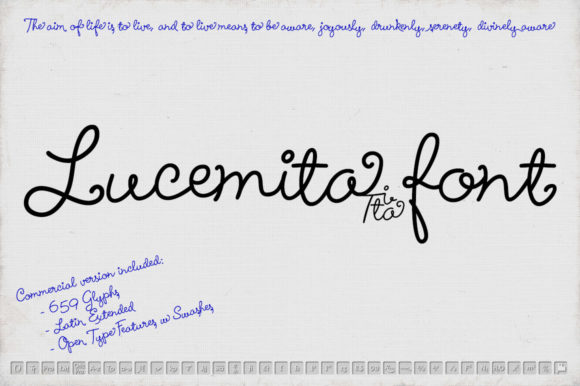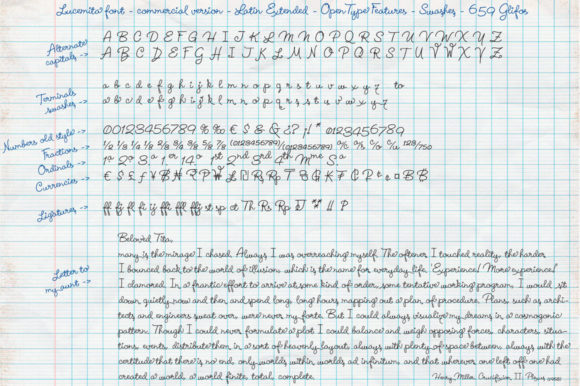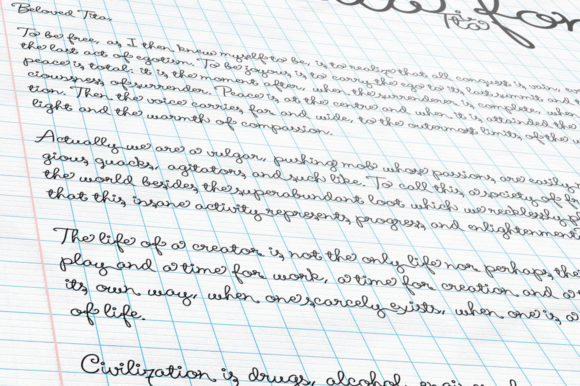
About Lucemita Script Font
Lucemita is a light-hearted handwritten typeface that was drawn by hand with a fine marker, then digitized to be used on computers. It is ideal for designing cards, posters, eye-catching headlines, advertising, publications, or any type of text that seeks contrast. Add this beautiful script font to each of your creative ideas and notice how it makes them stand out!